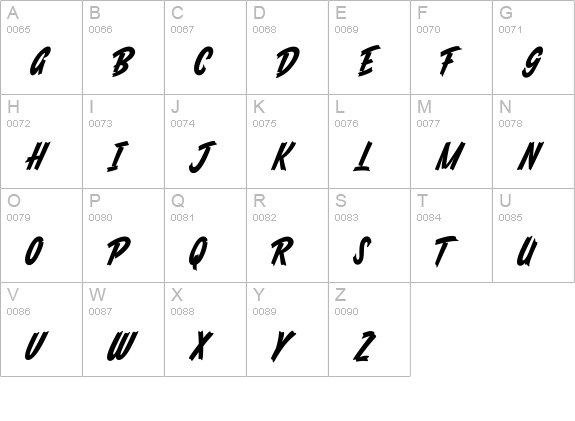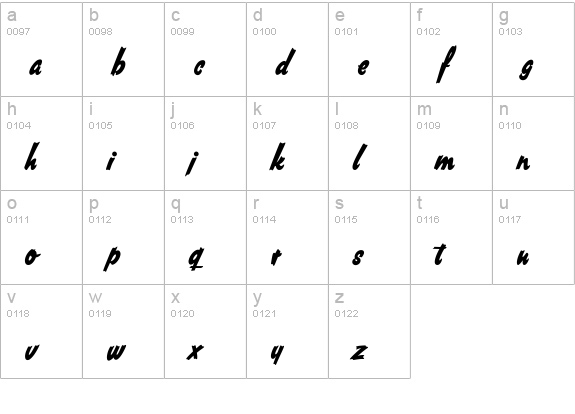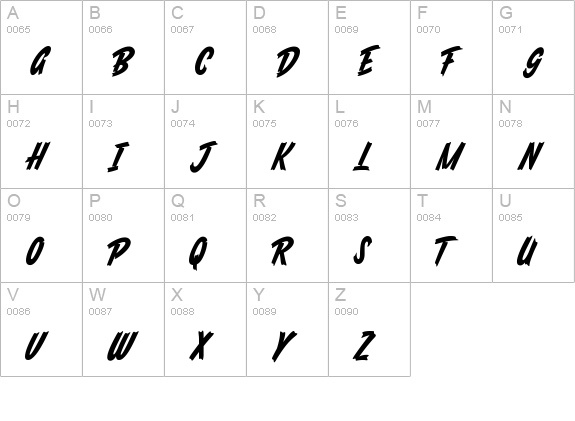
The South African Personal Use font is a stunning typeface that captures the essence and spirit of South Africa. With its bold yet elegant design, this font is perfect for adding a touch of authenticity and uniqueness to any project. This versatile font is suitable for a wide range of personal use applications, such as creating eye-catching social media posts, designing beautiful invitations, crafting captivating blog headers, or even adding a special touch to personal correspondence. Its clean lines and stylish curves make it a great choice for both digital and print projects. One of the best features of the South African Personal Use font is that it is completely free. Yes, you read that right! This incredible font is freely available to download at FontsMarket.com. We believe that creativity should be accessible to everyone, and that's why we are proud to offer this font as a gift to our valued users. Downloading the South African Personal Use font is a breeze. Simply visit FontsMarket.com, find the font page, and click on the download button. In just a few seconds, you'll have this exquisite font ready to unleash your creativity and bring your ideas to life. So, whether you're a graphic designer, a creative professional, or simply someone who appreciates beautiful typography, the South African Personal Use font is a must-have in your font collection. It not only adds a touch of elegance and sophistication to your designs but also allows you to express your personal style in a way that is uniquely South African. Don't miss out on this incredible opportunity to enhance your projects with the South African Personal Use font. Start exploring its endless possibilities today and let your creativity soar. Download it for free at FontsMarket.com and enjoy the beauty of South Africa in every letter.